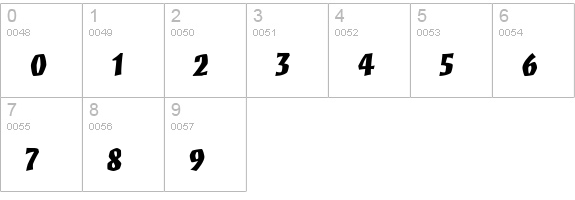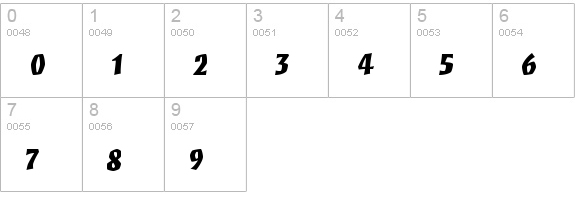
Mezz Std Black is a maximum-weight, dramatic variant in the Mezz typeface family \xE2\x80\x94 well suited to maximum-impact headlines, posters, and packaging.
Mezz Std Black font is a modern and elegant typeface that exudes sophistication and versatility. With its bold and sleek design, this font is perfect for creating eye-catching headlines, titles, and branding materials. The Mezz Std Black font features strong, clean lines that make it stand out and command attention on any project. What's even better is that Mezz Std Black font is completely free to download at FontsMarket.com. This means you can easily access this stunning font without breaking the bank. Whether you're a designer looking to add a touch of class to your creations or a business owner in need of a standout font for your marketing materials, Mezz Std Black font is the perfect choice. Download it today and elevate your designs to the next level.